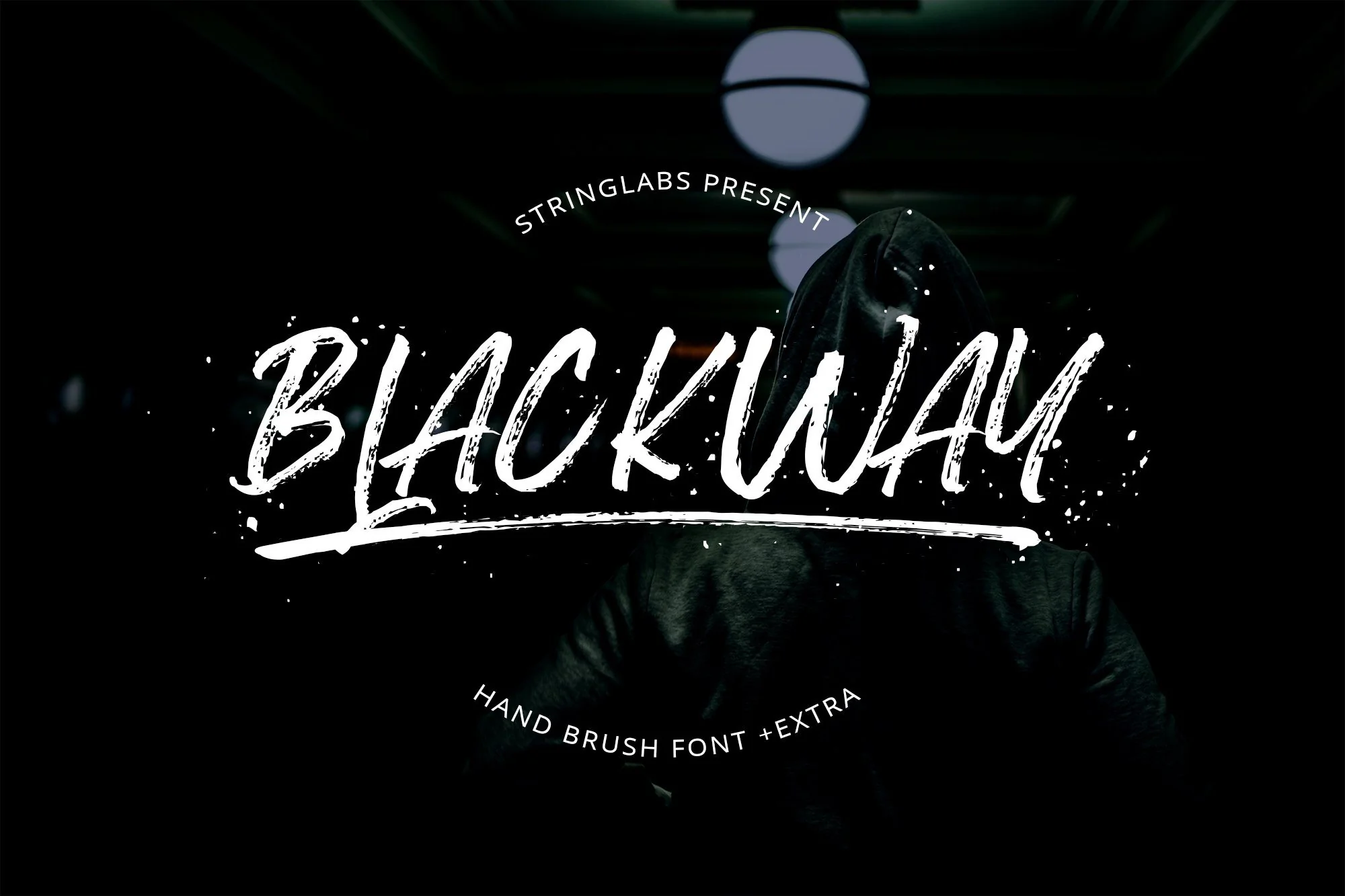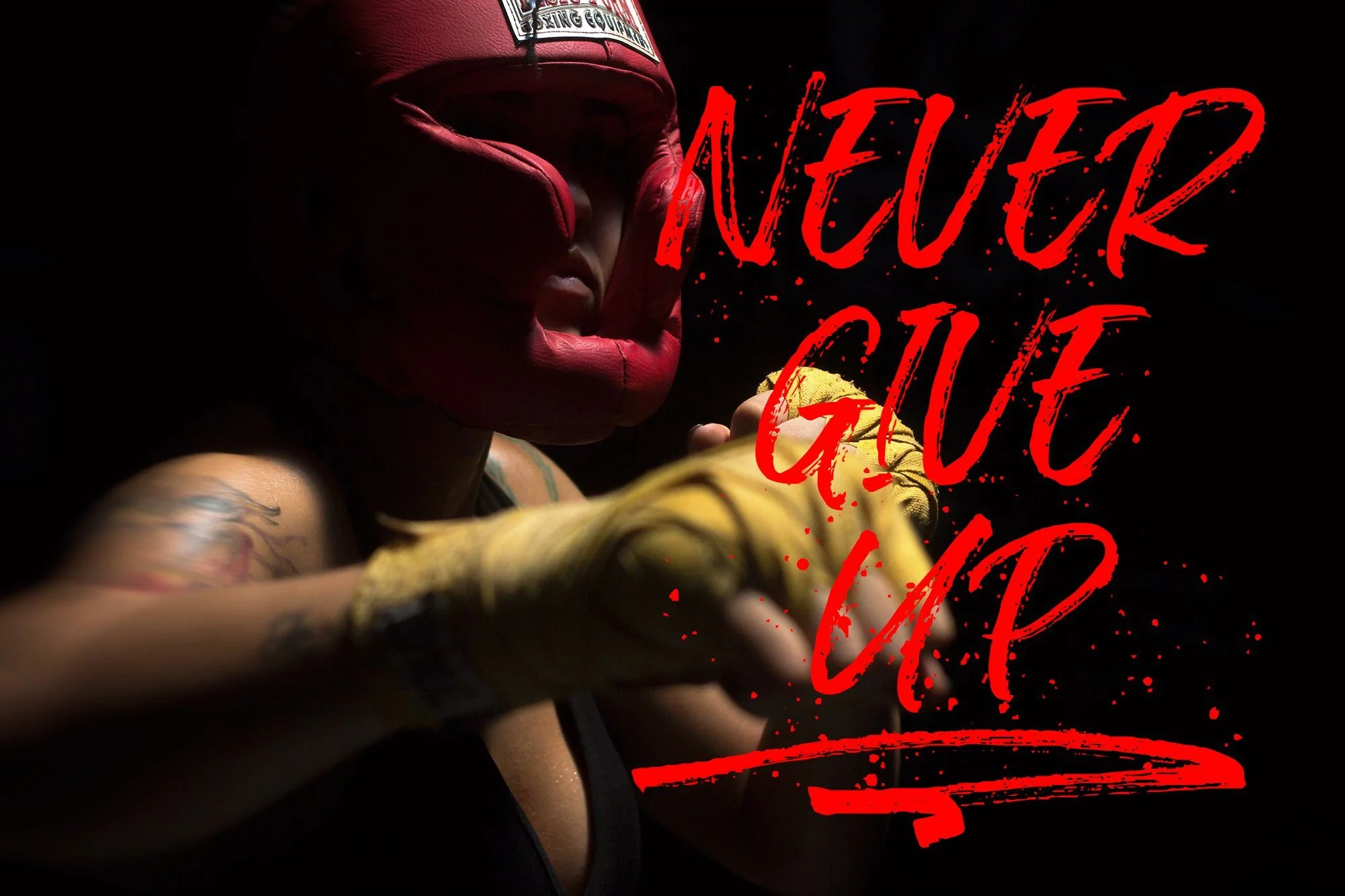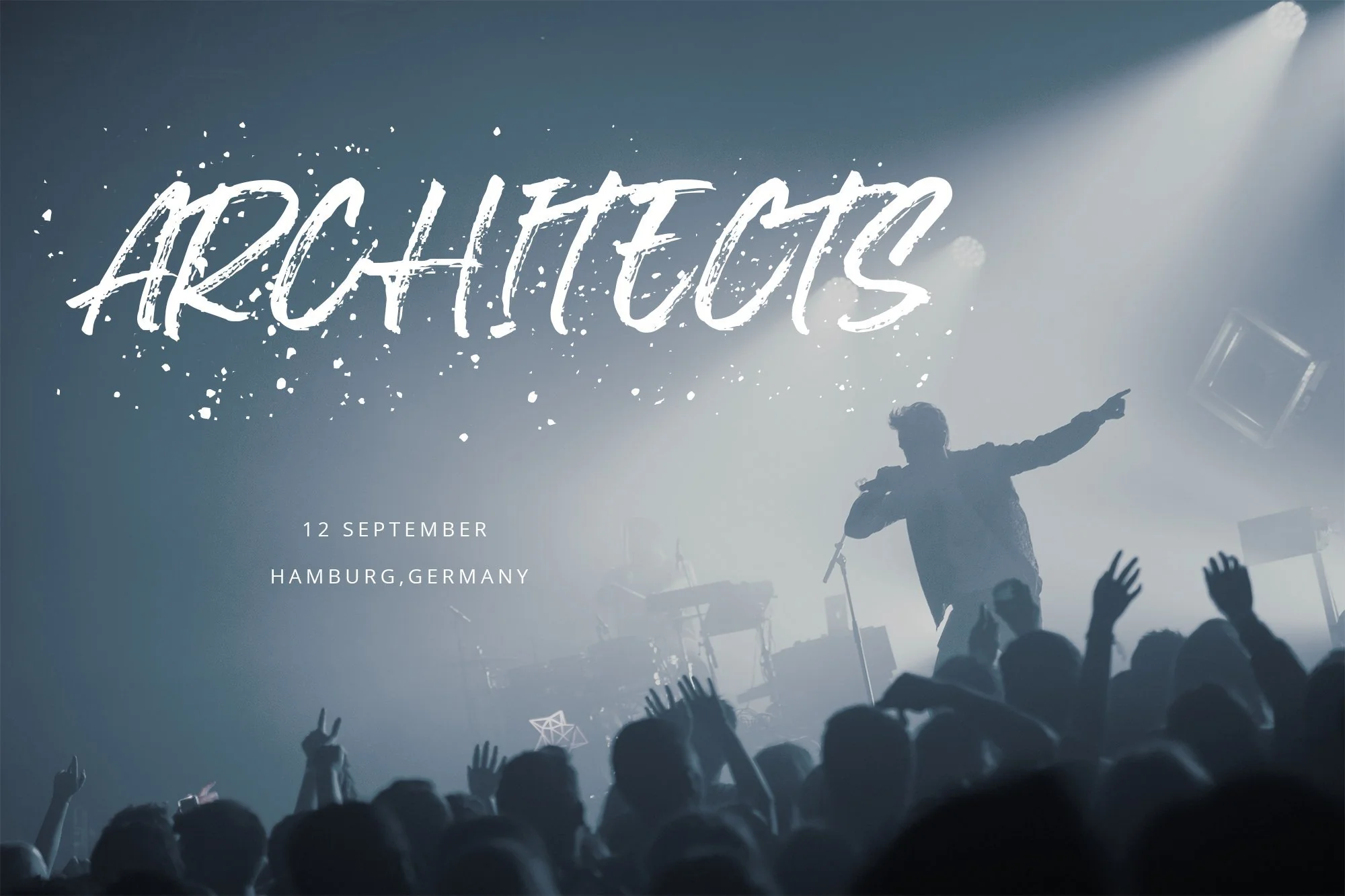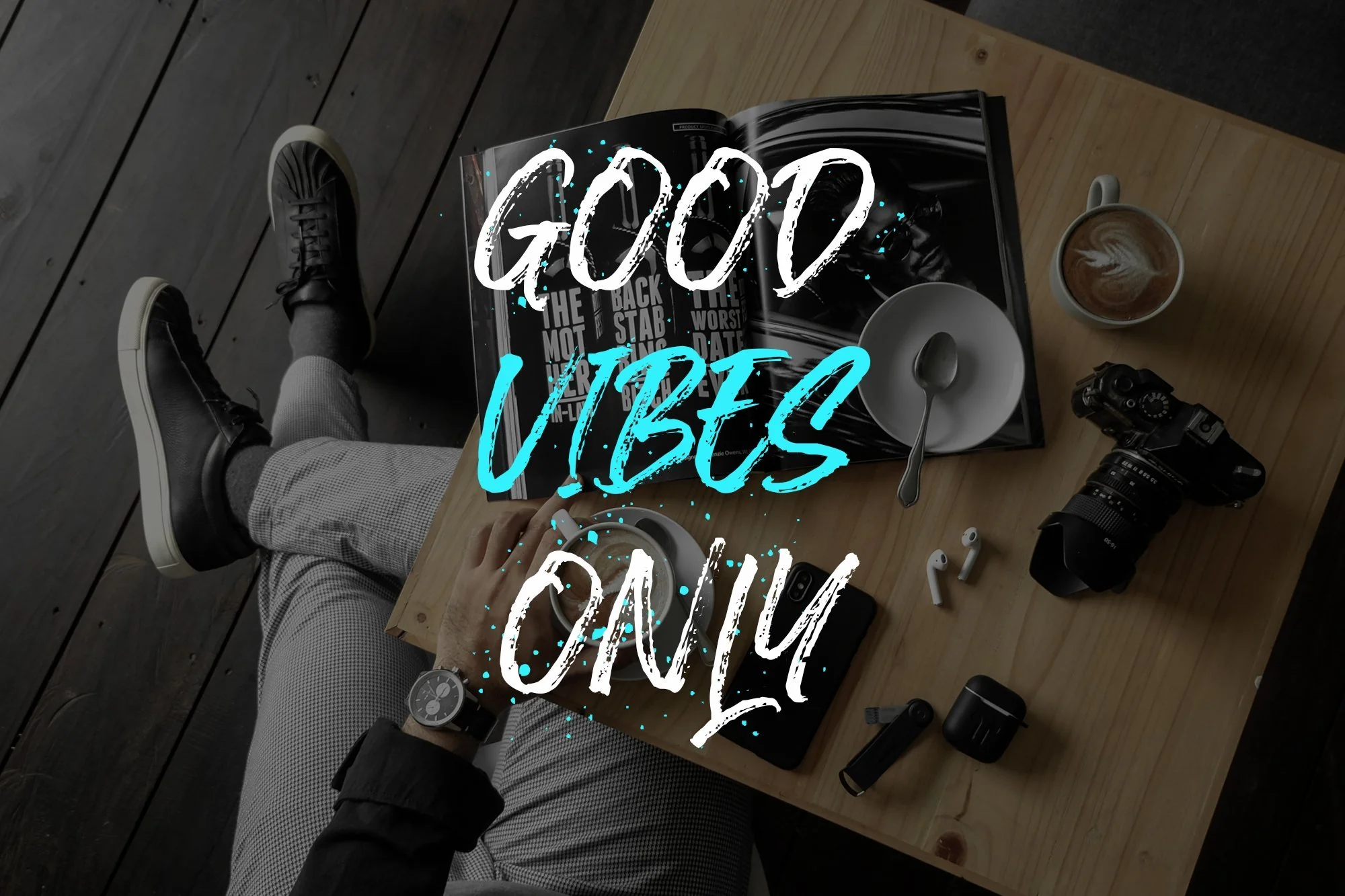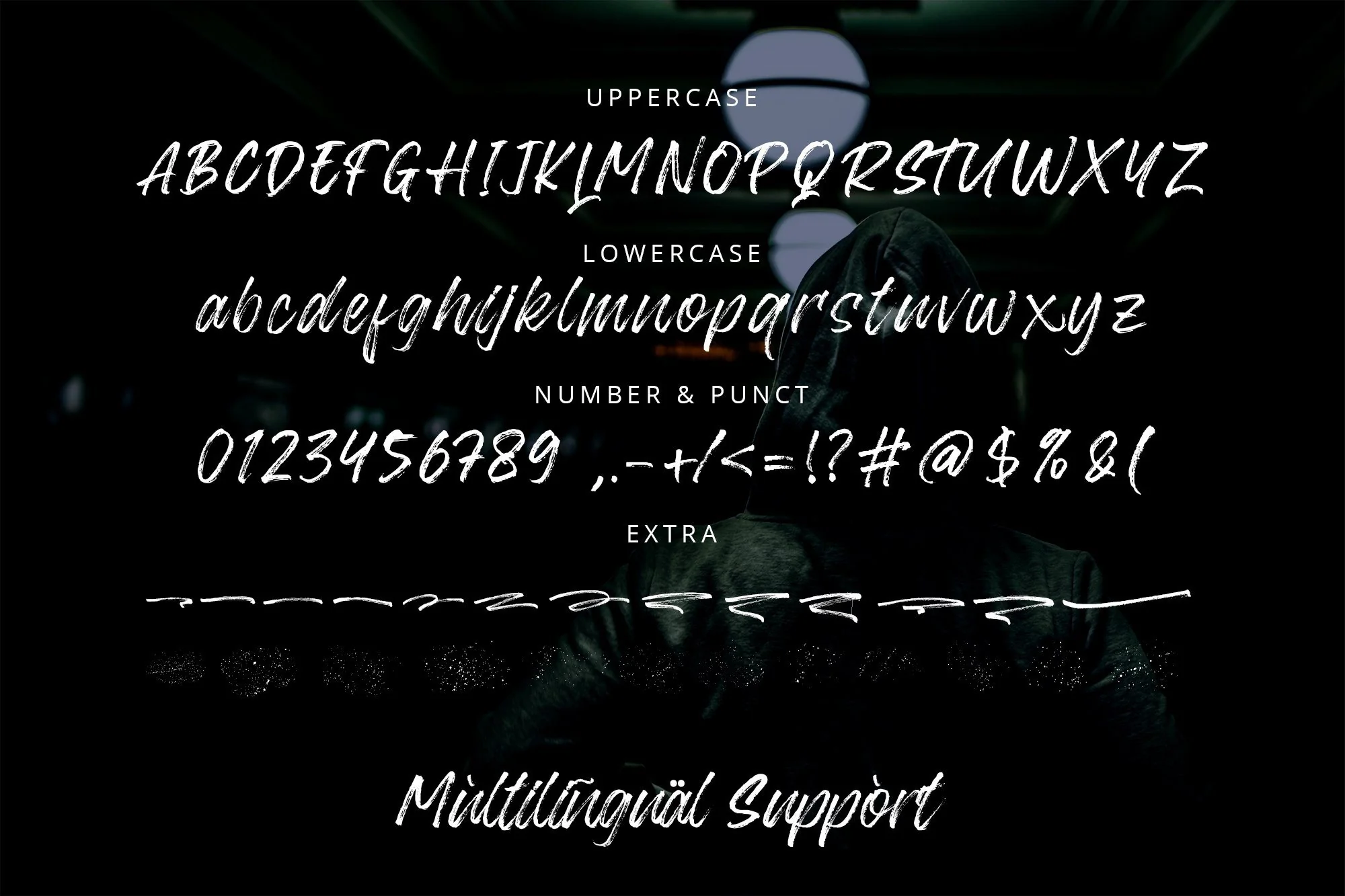
Blackway - Handbrush Font
Introducing Blackway - Handbrush Font
Handbrush, Photography, Invitation, Packaging, Logo Type, Branding Design, Fashion and also can be used for Business purpose.
This Font Template contains Modern, Elegant, Creative, Professional and Unique Concept.
- Extra Swash